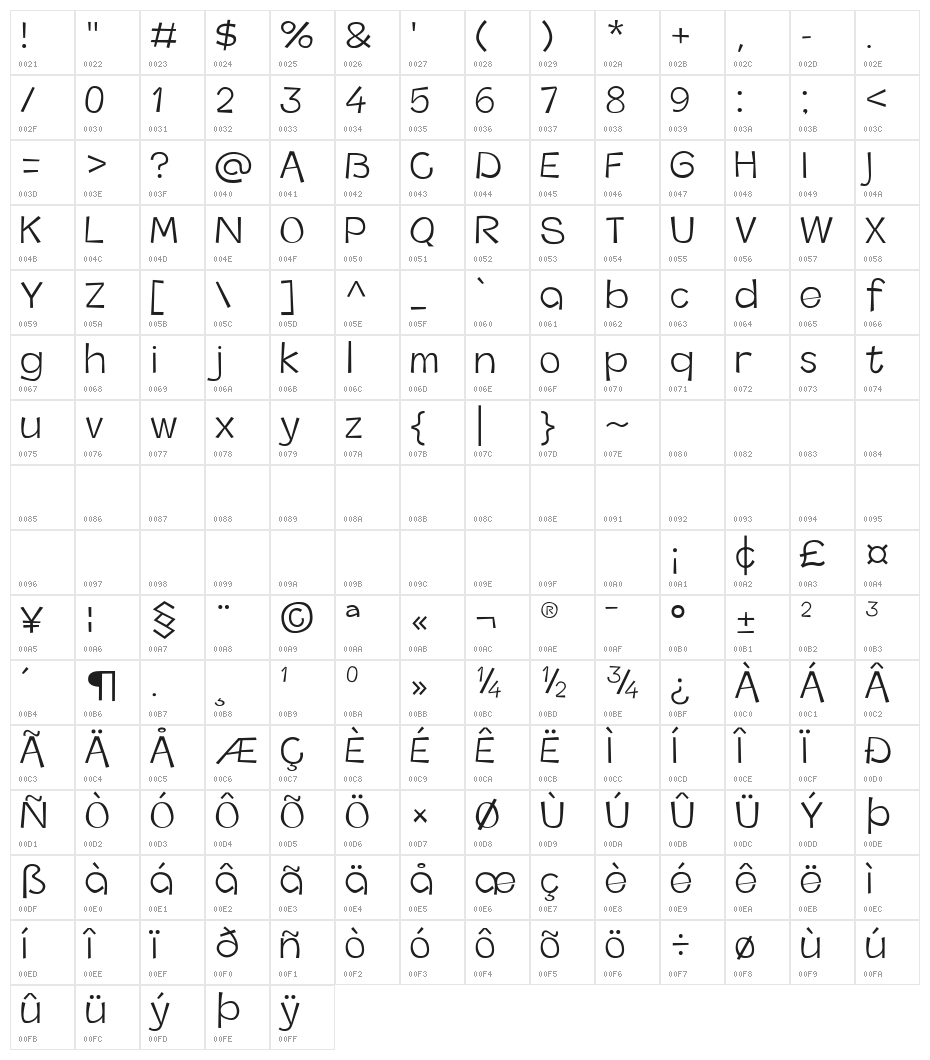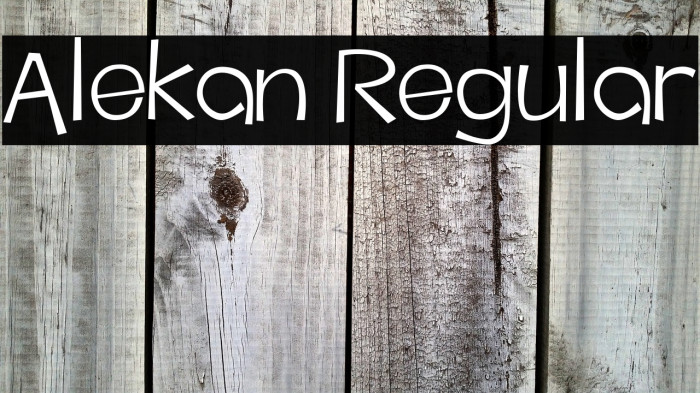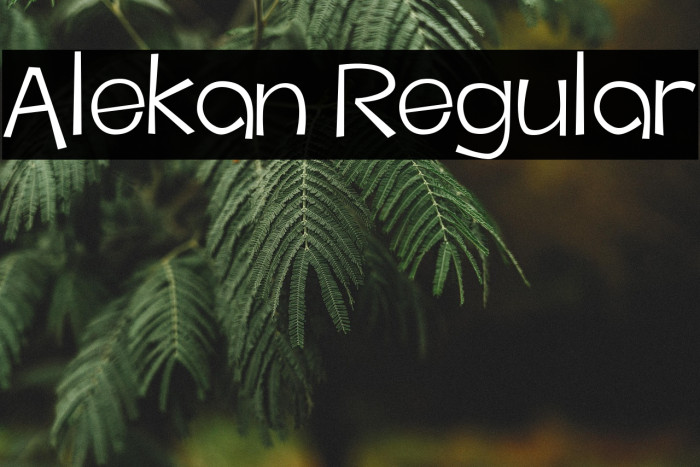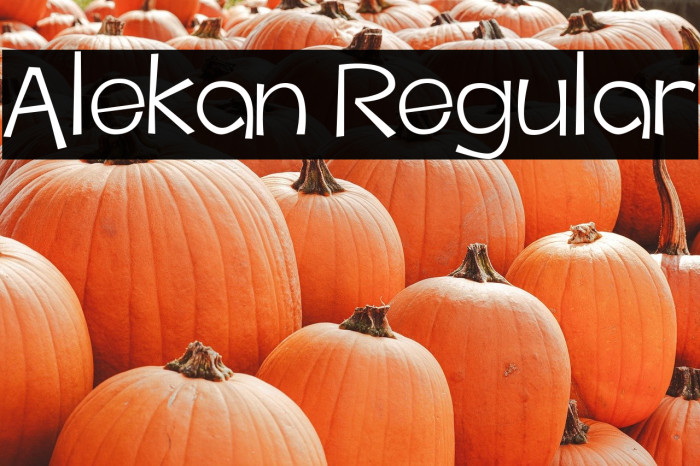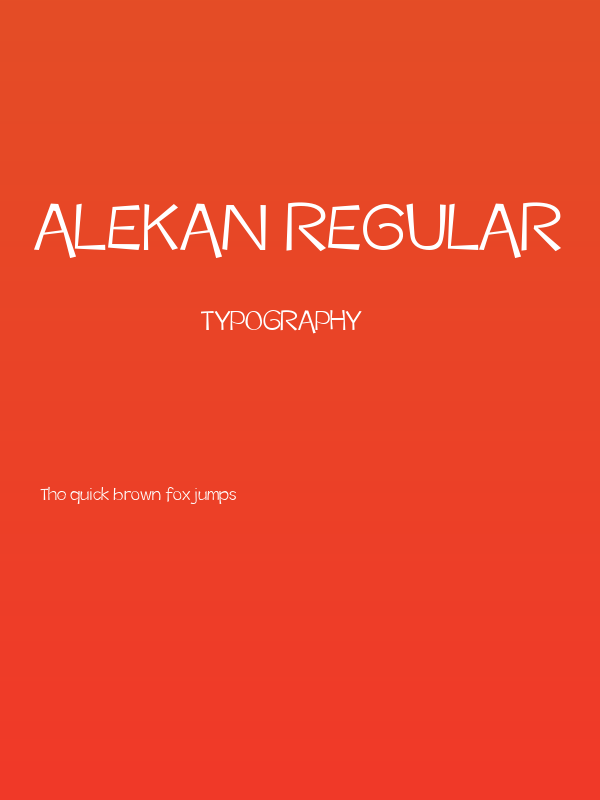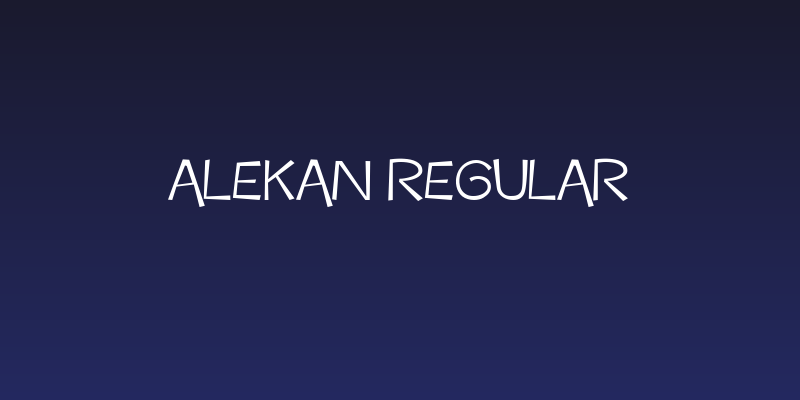
Alekan Regular Font
Alekan Regular Description
This font features a playful and quirky design with a handwritten feel. The characters have a slight tilt, giving them a dynamic and lively appearance. The strokes are consistent in weight, providing a uniform look across both uppercase and lowercase letters. The numerals and special characters maintain the same whimsical style, making the font suitable for creative and informal projects. The overall design is clean and legible, with a touch of personality that stands out.
| Proposed Projects | Ideal for children's books, greeting cards, playful branding, and casual invitations. |